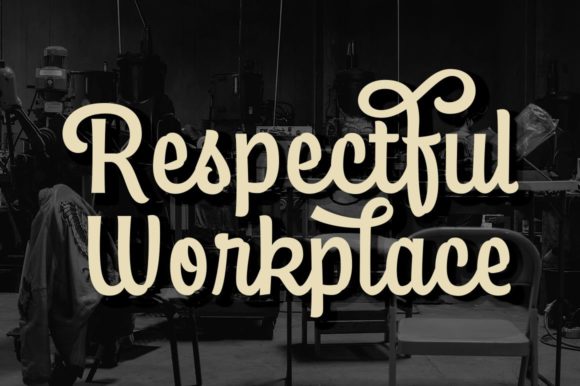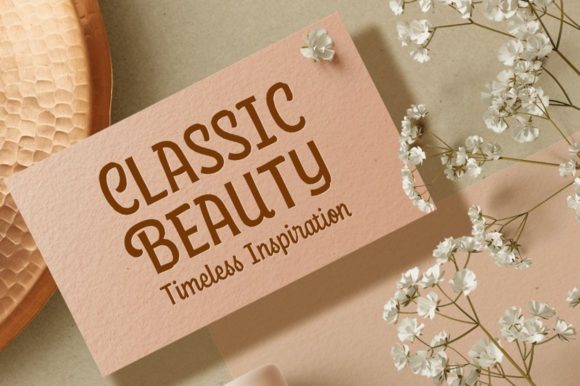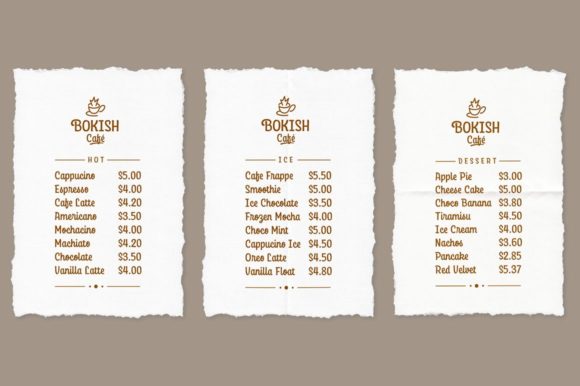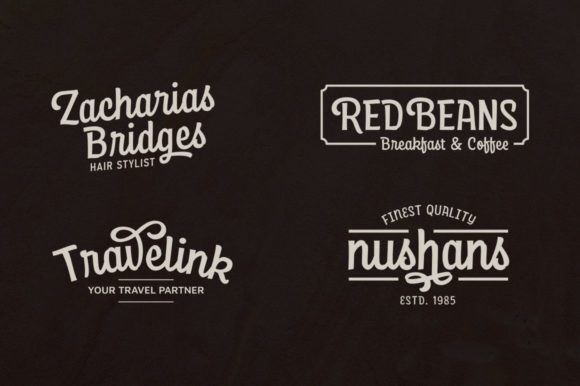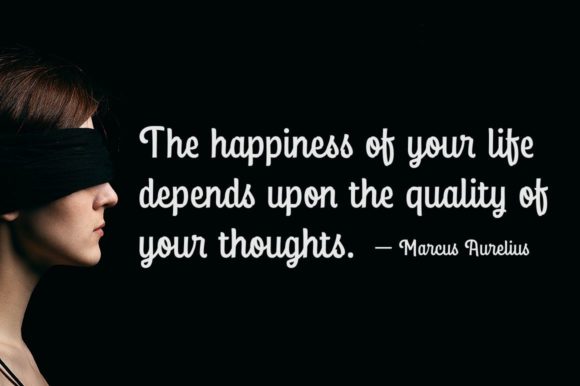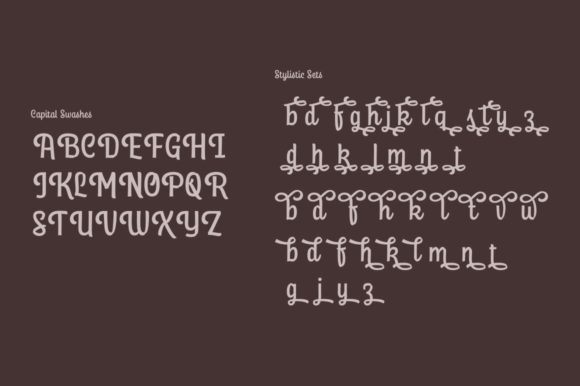
Introduction to Nilakandi Font
As a designer, there’s nothing quite like the thrill of discovering a new font that perfectly captures the essence of your creative vision. For me, that moment came when I stumbled upon the Nilakandi Font – a true masterpiece of handwritten design. Its elegant, calligraphic style is both timeless and modern, making it the perfect addition to any project.
Whether you’re working on a branding campaign, a wedding invitation, or a digital product, the Nilakandi Font is a valuable resource that can elevate your design to new heights. With its high-quality, transparent background and versatile style, this font is perfect for designers who want to add a touch of sophistication to their creative projects.
So, what makes the Nilakandi Font so special? In this article, we’ll dive into the world of this exquisite font and explore its unique features, making it a must-have download for any designer looking to take their work to the next level.
Key Features of Nilakandi Font
- Nilakandi Font features a unique blend of traditional and modern elements, making it perfect for projects requiring a unique aesthetic.
Honest Review: Nilakandi Font
As a designer, I’m always on the lookout for high-quality design resources to elevate my creative projects. Recently, I came across the Nilakandi Font, and I’m excited to share my honest review.
The Nilakandi Font is a beautiful, free download that’s perfect for any design project. What works well is its elegant and sophisticated design, making it ideal for both personal and commercial use.
- ✨ High-quality design that’s both elegant and sophisticated
However, I did encounter a few limitations. The font doesn’t have a transparent background, which can be a bit restrictive when working with layered designs.
Overall, I’m impressed with the Nilakandi Font. It’s a great addition to any designer’s toolkit, and I appreciate the fact that it’s a free download. With a few tweaks to address the limitations, I think this font has the potential to be a top design resource.
The Nilakandi Font is perfect for designing logos, business cards, and other marketing materials.
It’s also great for creating digital products, such as ebooks and infographics.